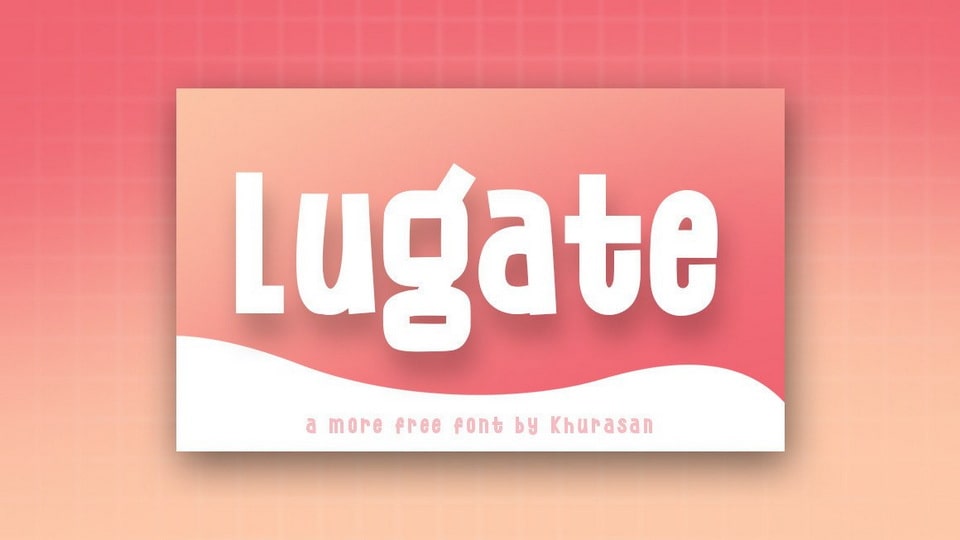
Download Lugate font, a quirky and fancy display typeface. With its playful look Lugate font is perfect for posters, comics, magazines, book covers, banners, and many more.